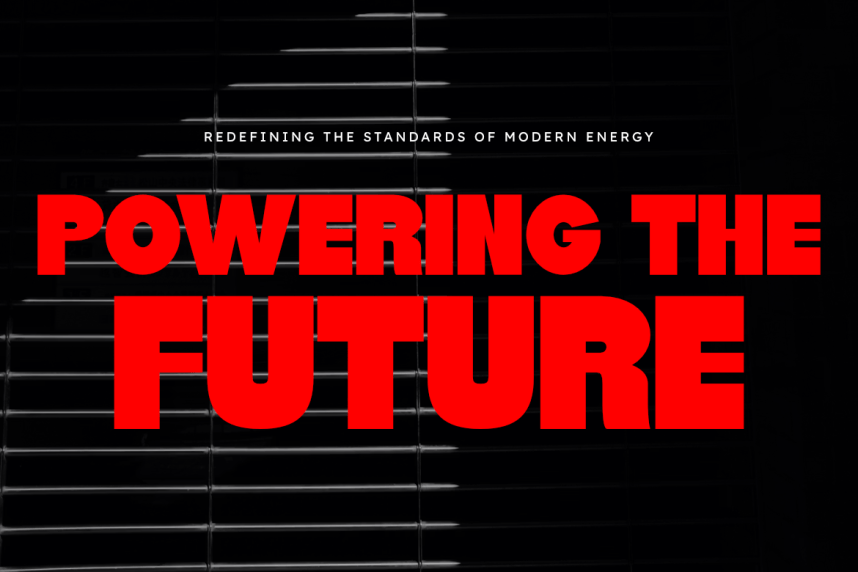
Hopless Font
Hopless Font is a striking, heavyweight modern bold sans display font designed to deliver maximum visual impact with a clean and contemporary aesthetic. Its solid, thick construction and bold geometric lines make it an exceptional choice for powerful headlines, professional branding, fashion editorials, and high-energy poster designs. This versatile typeface ensures your message is delivered with unshakeable confidence, providing a sleek yet authoritative look that is perfect for any modern creative project across digital and print media.